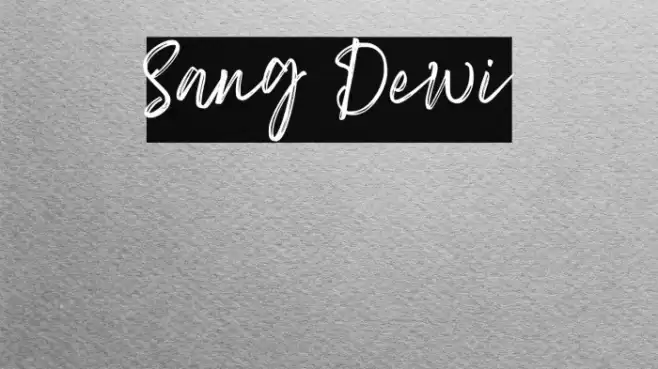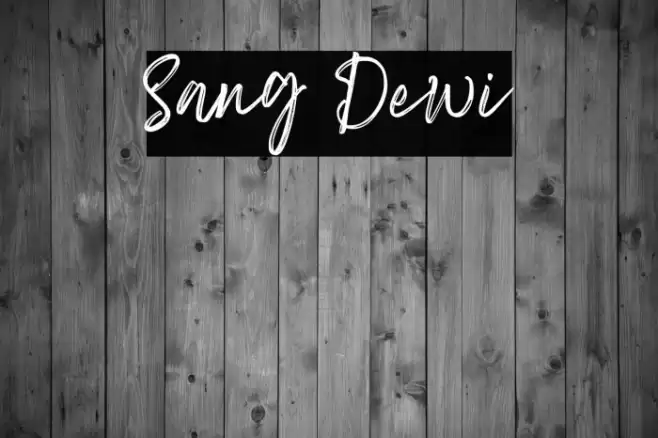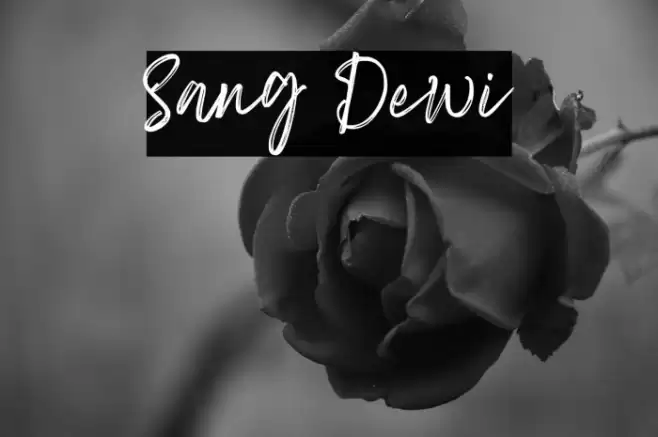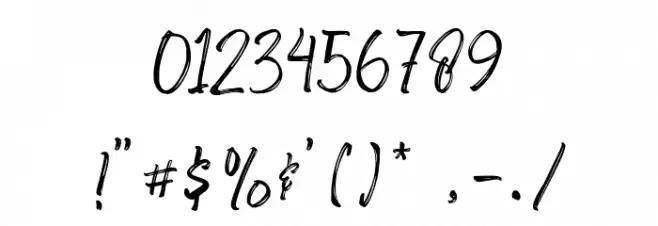
Sang Dewi Font
Sang Dewi Description
This font exudes a lively and dynamic energy with its handwritten script style. The letters are fluid and connected, giving a sense of movement and personality. The strokes vary in thickness, adding a playful contrast that enhances its visual appeal. The uppercase letters are bold and expressive, while the lowercase letters maintain a consistent flow. Numbers and special characters are designed to match the overall style, ensuring a cohesive look. This font is perfect for projects that require a personal touch or a creative flair.
A lively handwritten script font with dynamic strokes and playful contrast from Uncategorized fonts.